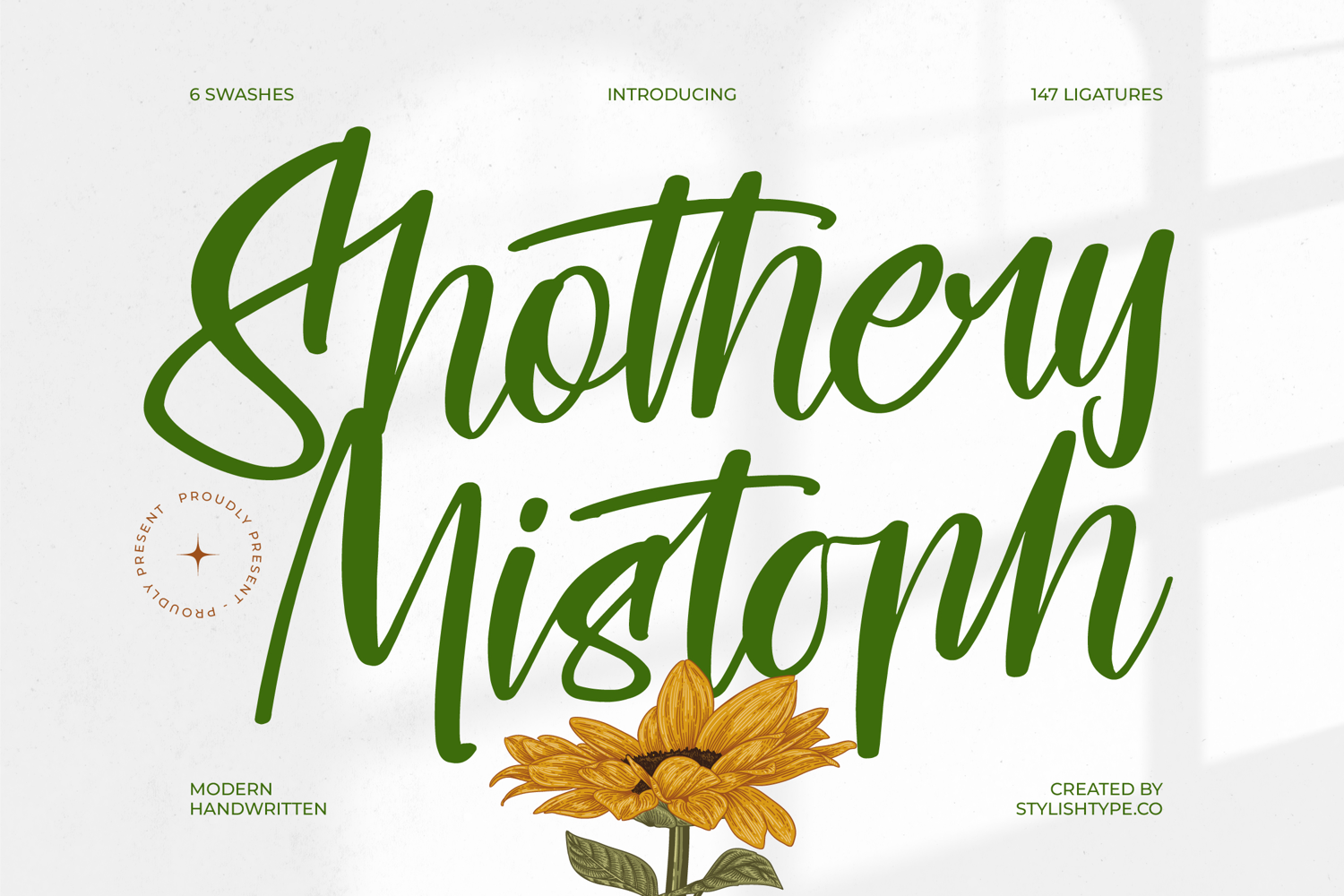
Shothery Mistoph - Modern Handwritten Font.
Shothery Mistoph Italic
Shothery Mistoph
Shothery Mistoph - Modern Handwritten Font adapts seamlessly across global markets, making it incredibly versatile for international projects. This comprehensive language capability ensures that your message maintains its intended warmth and professional polish, regardless of geographic application, guaranteeing global adaptability and high compatibility.